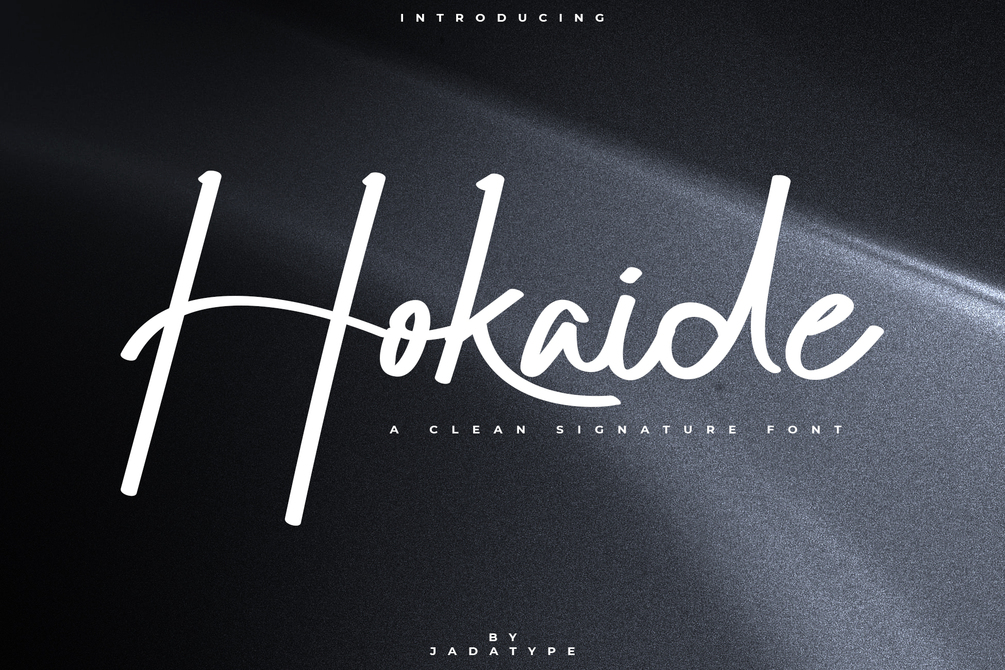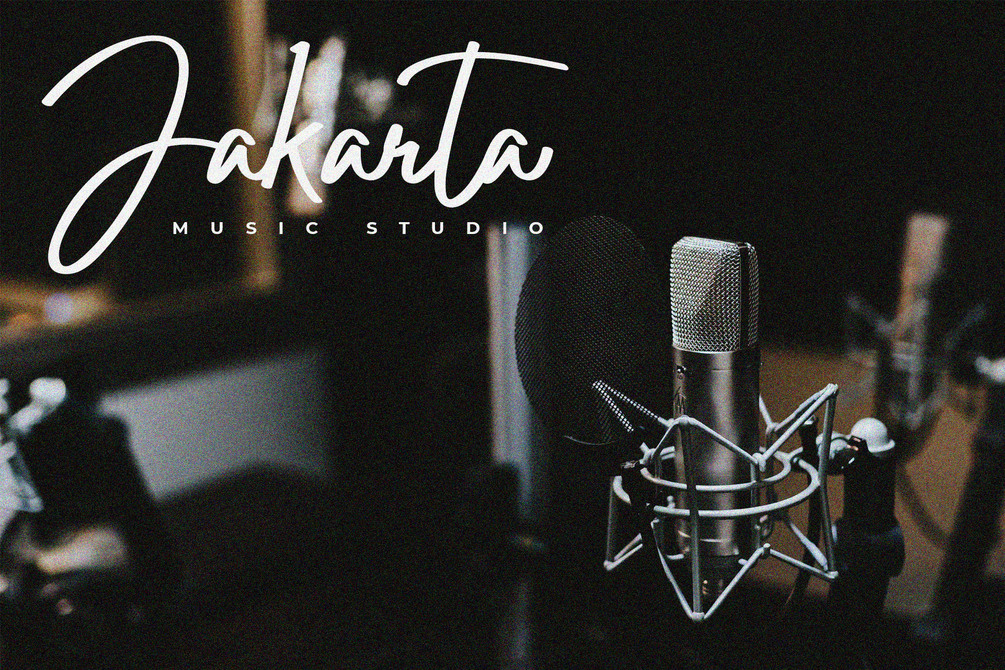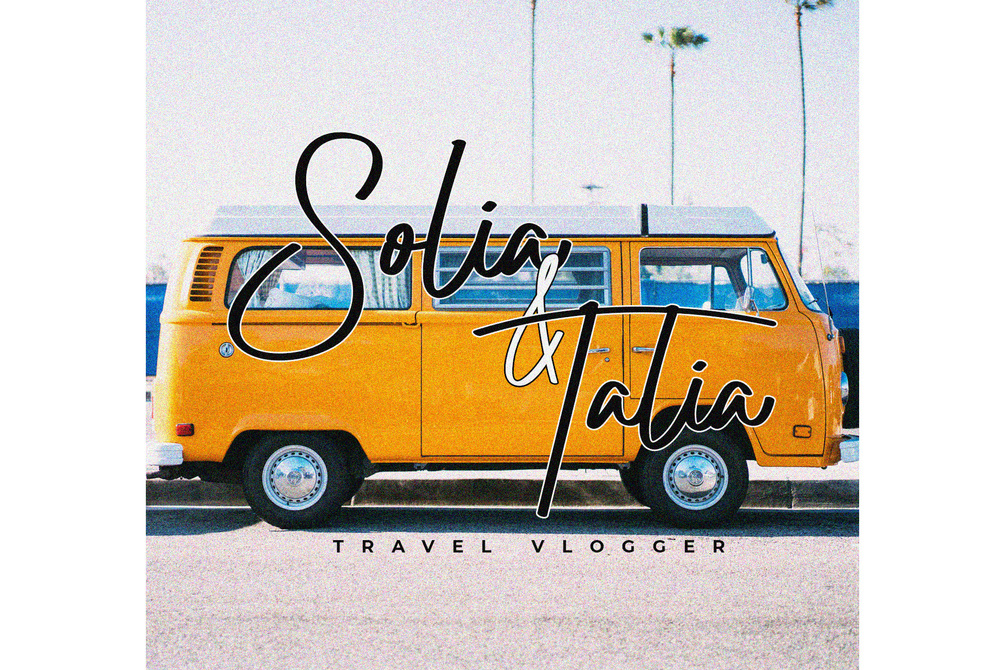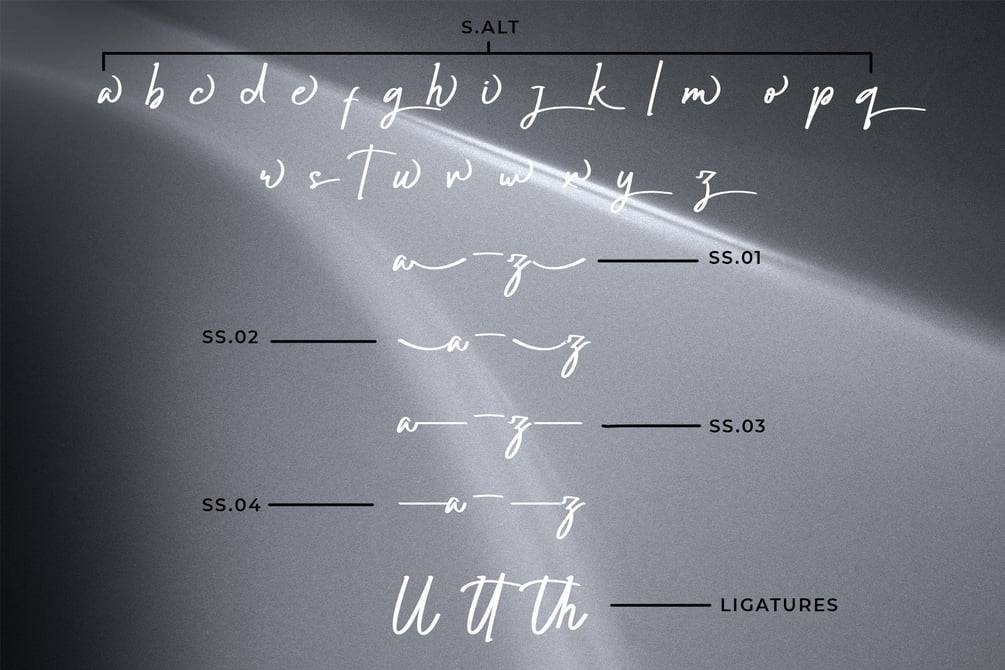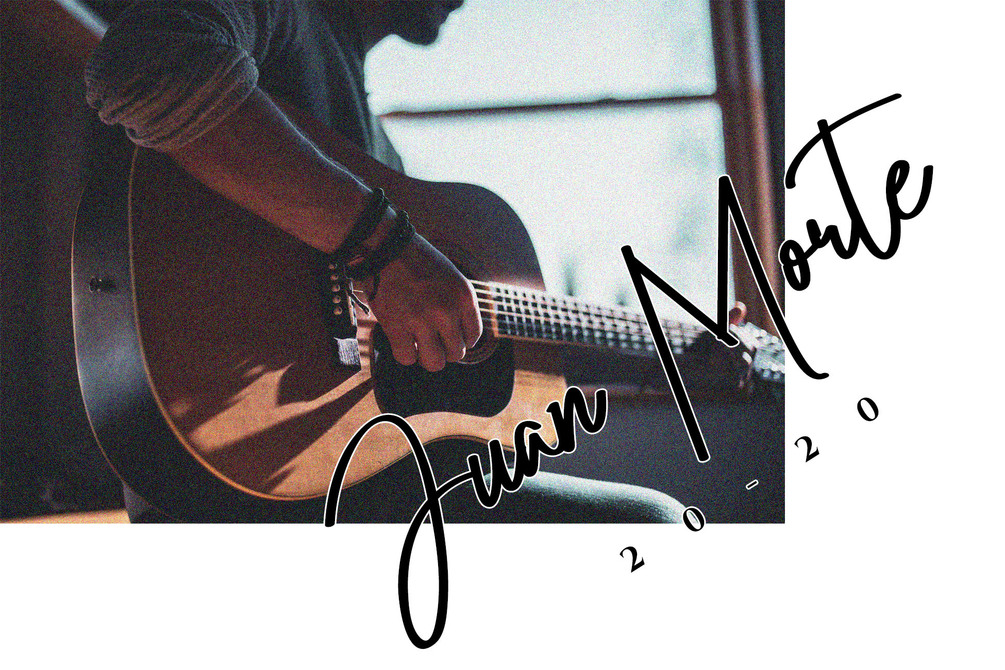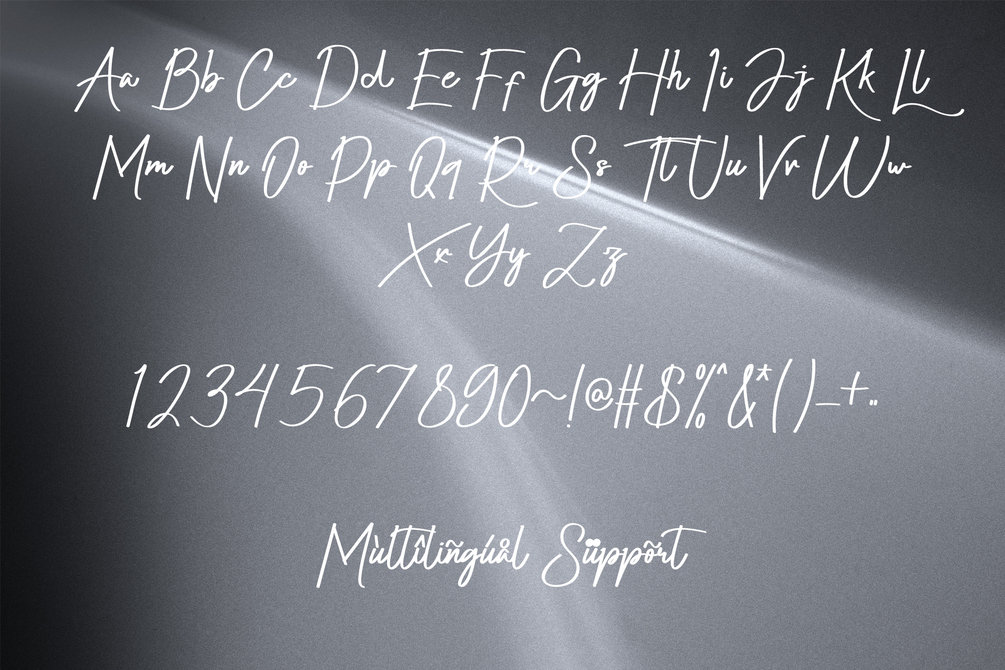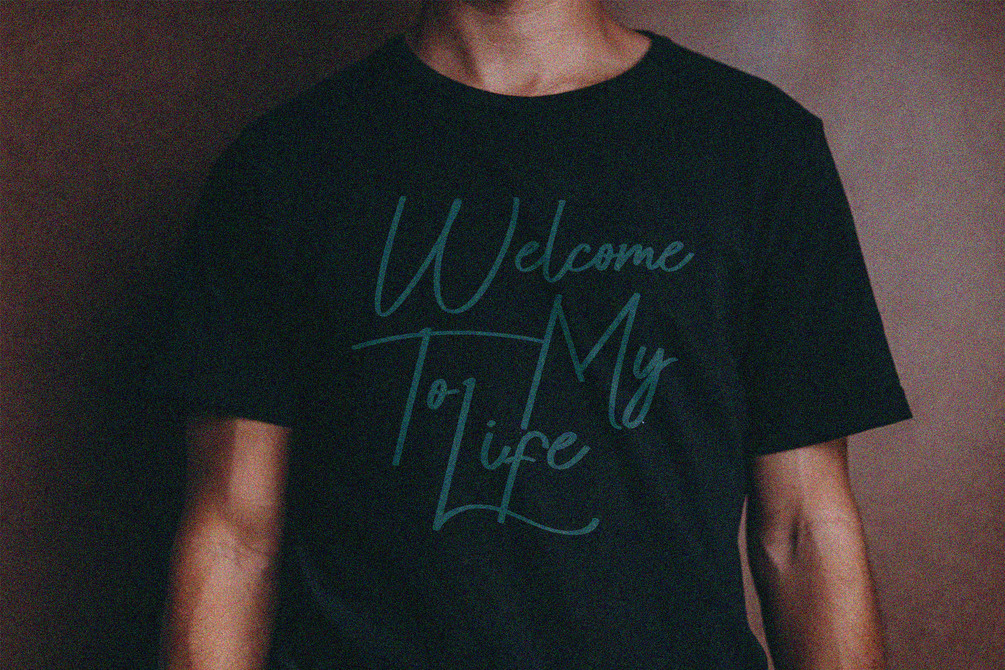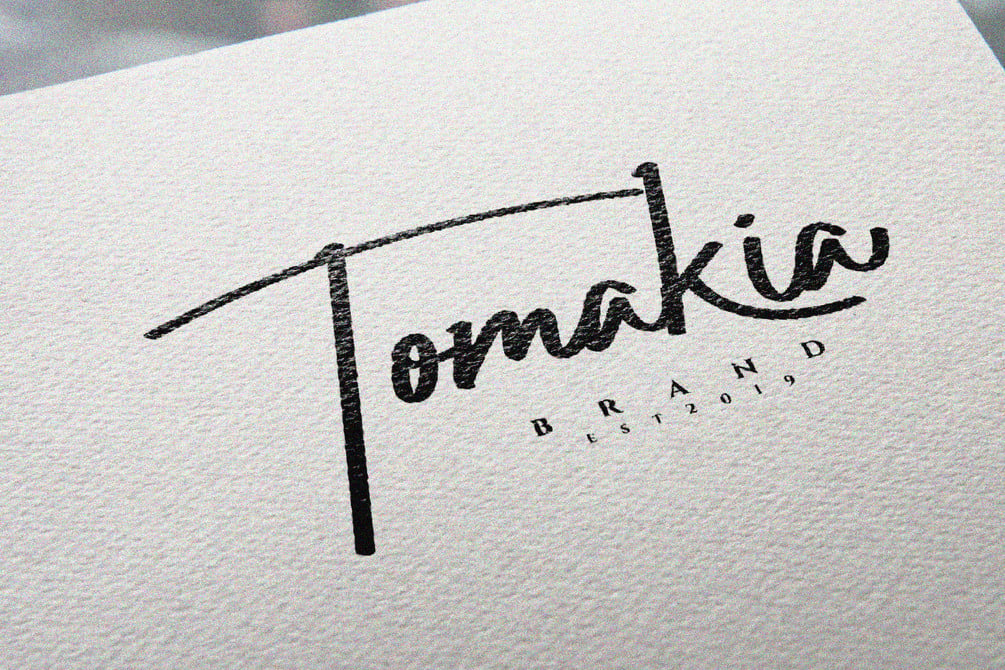
Hokaide Font
Hokaide is a script font that comes with a Stylish Modern Style. suitable for product, branding, social media, notes and so on. contains standard English letters, numbers, punctuation, and several accents that support multilingualism.